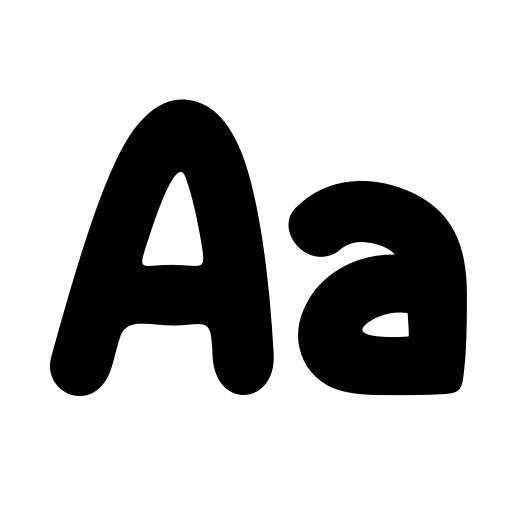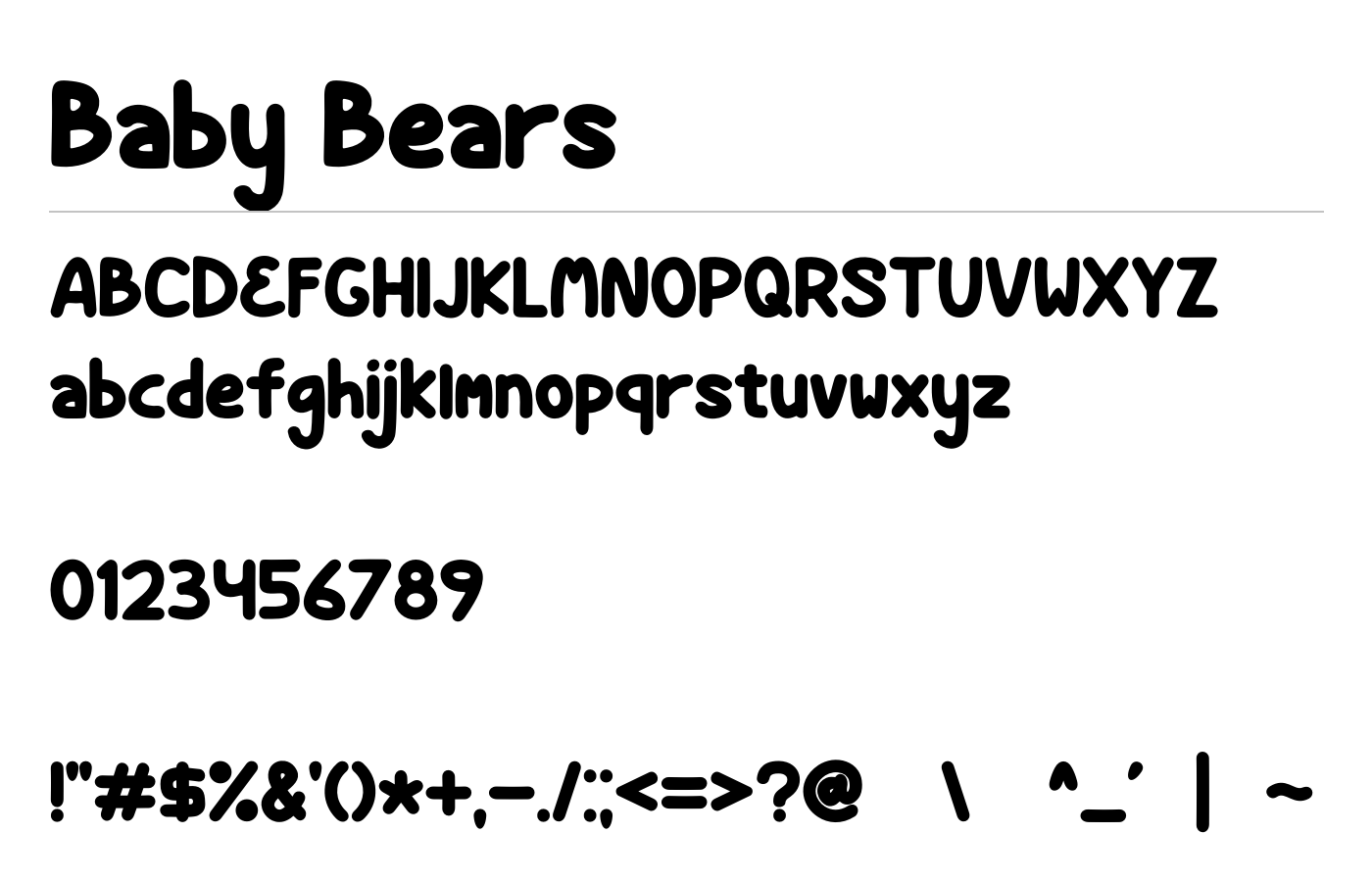
Baby Bears is a playful and friendly sans serif font with rounded, chunky letterforms that evoke a warm, childlike charm. Its bold weight and casual style make it perfect for kids’ products, fun branding, and informal designs that need an inviting and approachable feel. This font works best in headlines, logos, and creative projects where a sense of fun and simplicity is key.
Baby Bears Font
About Baby Bears Font
| Font family | Baby Bears Font |
| Designer | Rahmad Hidayat |